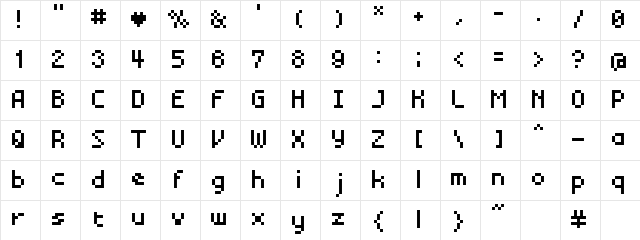
BM mini A8 Free Font
BM mini A8
Style: A8
Design Context for BM mini
BM mini is a composed and adaptable typeface that performs quietly and consistently across a wide range of design contexts.